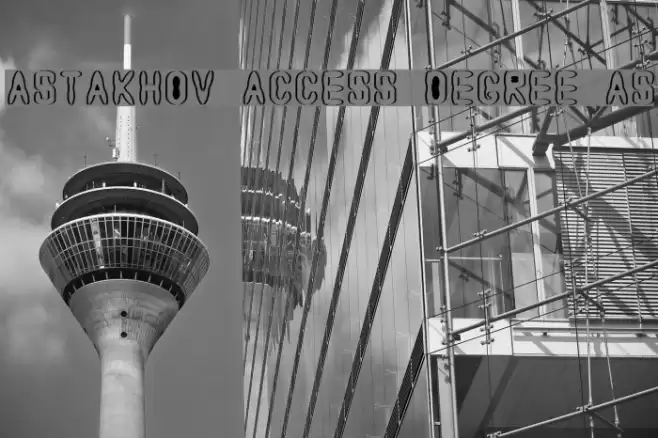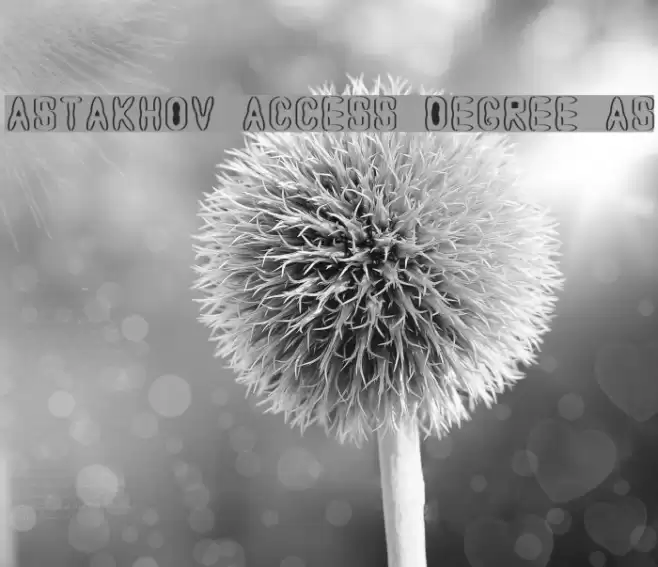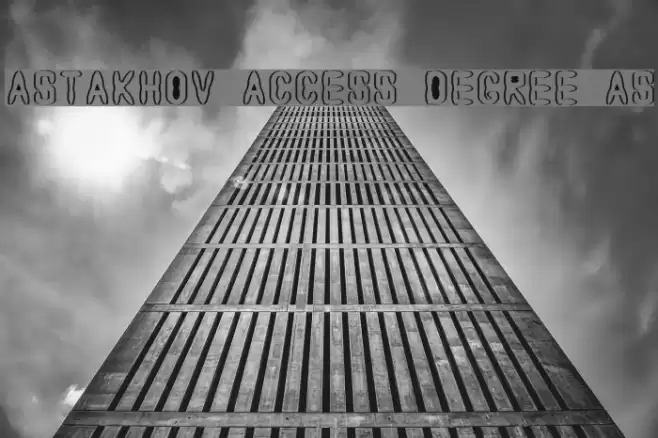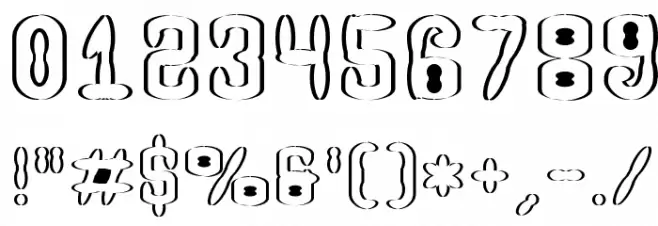
Astakhov Access Degree AS Font
Astakhov Access Degree AS Description
This font features a unique and playful design with hollow, bubble-like characters that create a sense of depth and dimension. The letters are bold and rounded, with a distinct outline that gives them a three-dimensional appearance. The style is consistent across uppercase, lowercase, numbers, and special characters, maintaining a cohesive look. The playful nature of the font makes it suitable for creative and informal projects. The characters are evenly spaced, ensuring readability while maintaining a whimsical aesthetic. This font is ideal for projects that require a fun and engaging visual element.
A playful, hollow, bubble-like font with bold, rounded characters from Uncategorized fonts.
- Overall Style: Playful, Creative